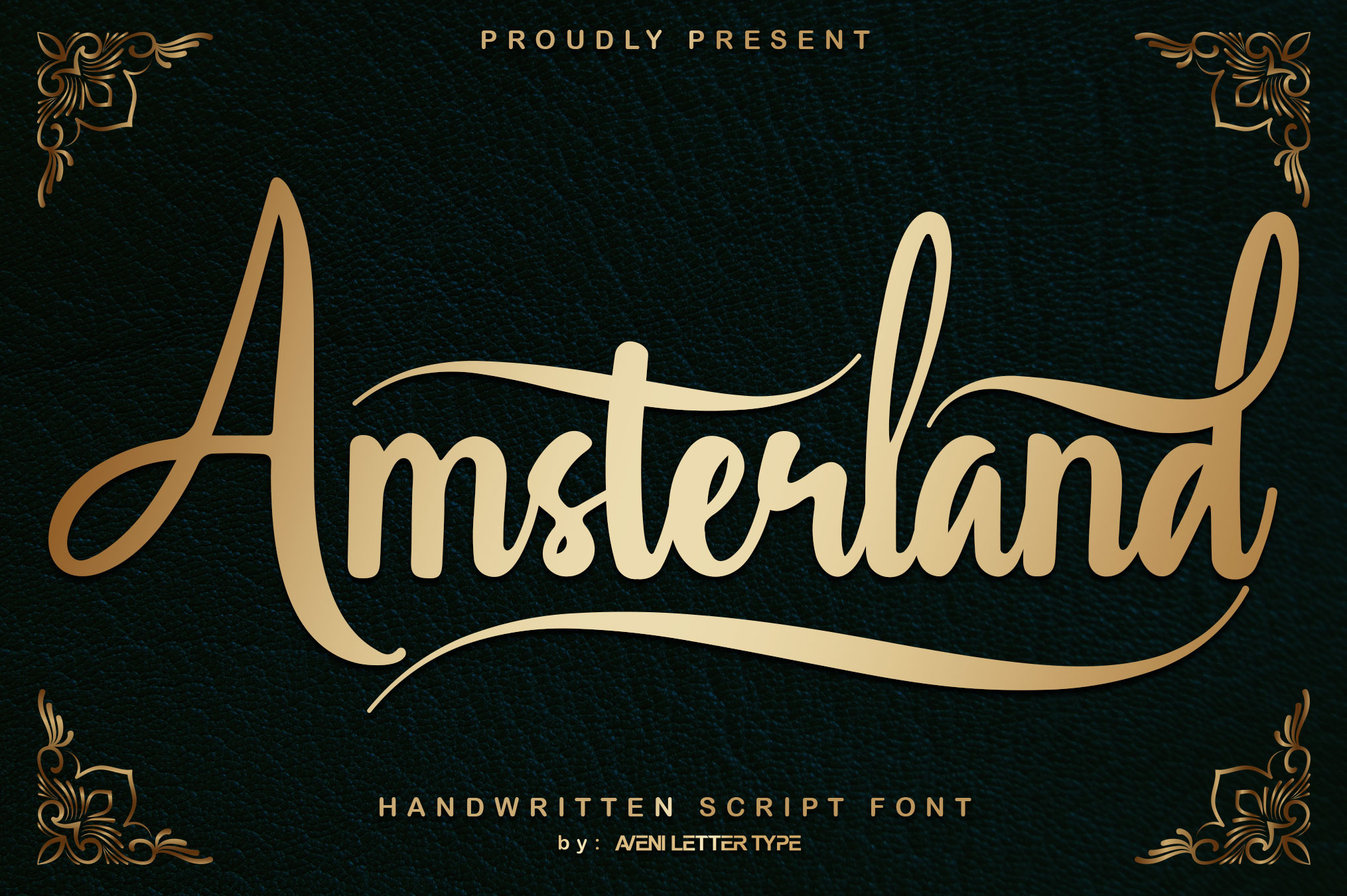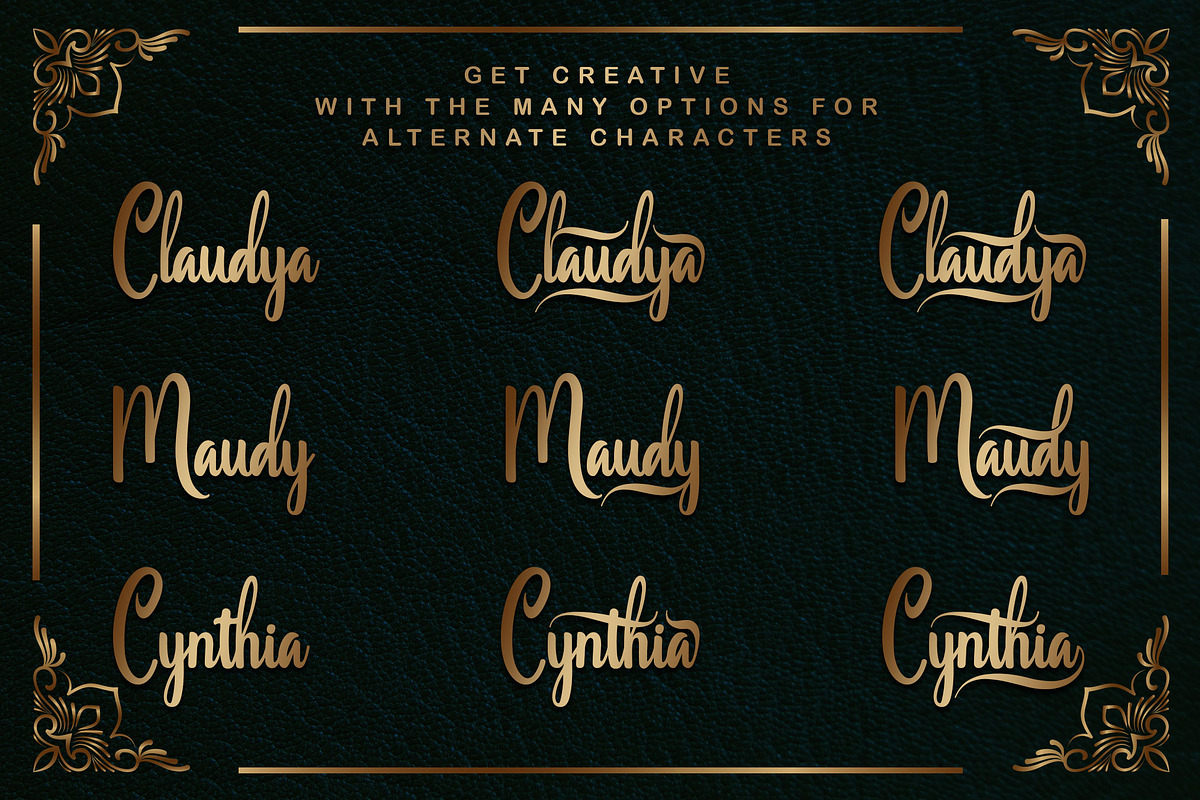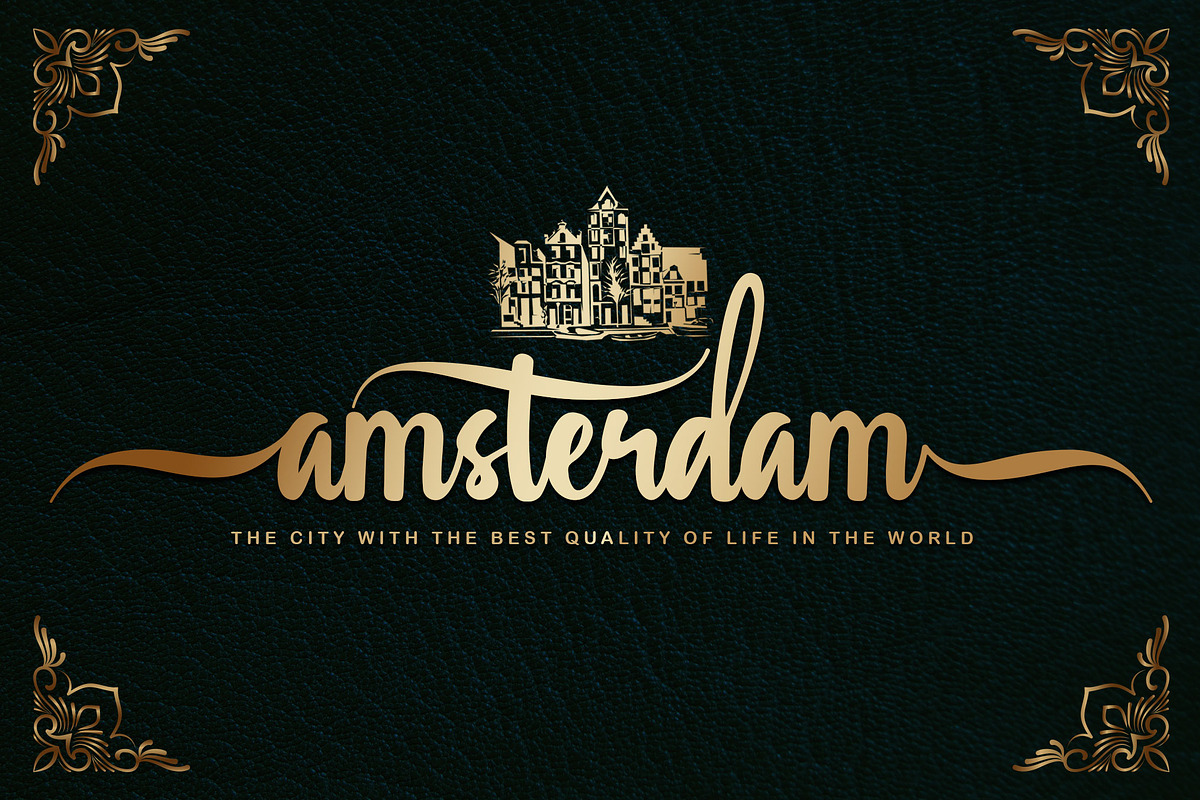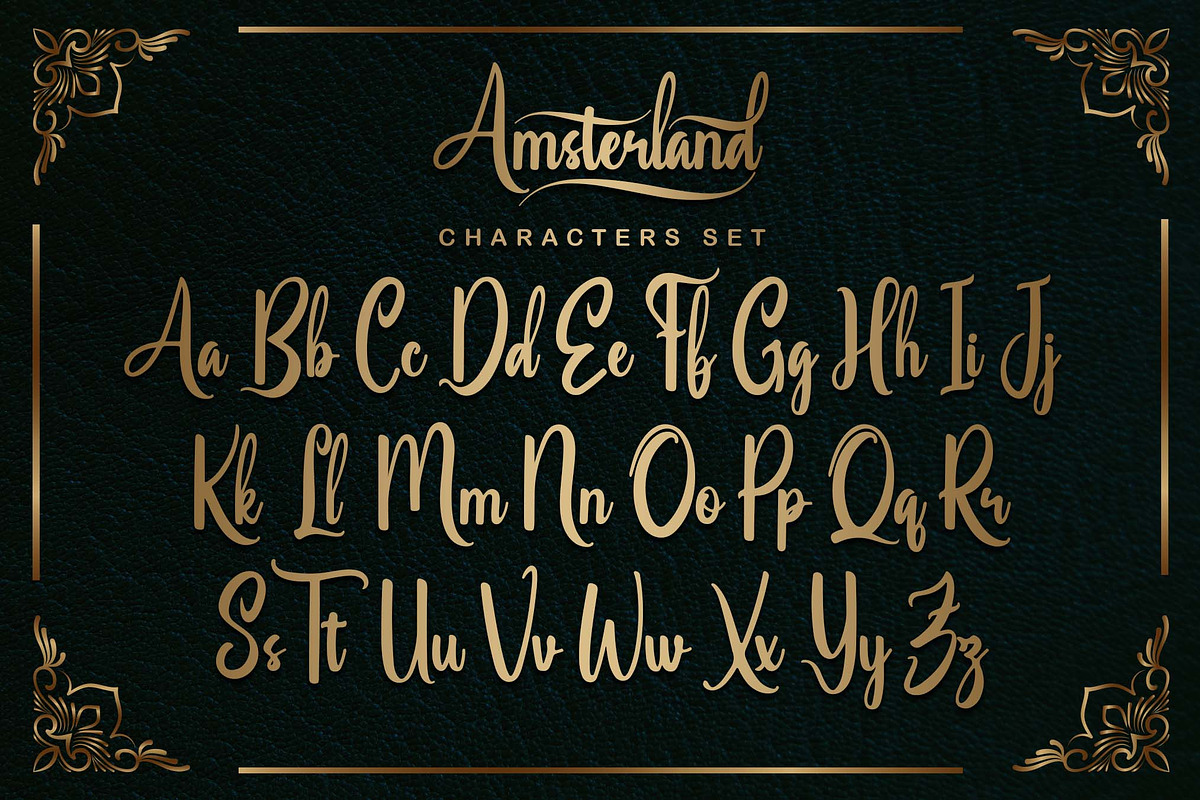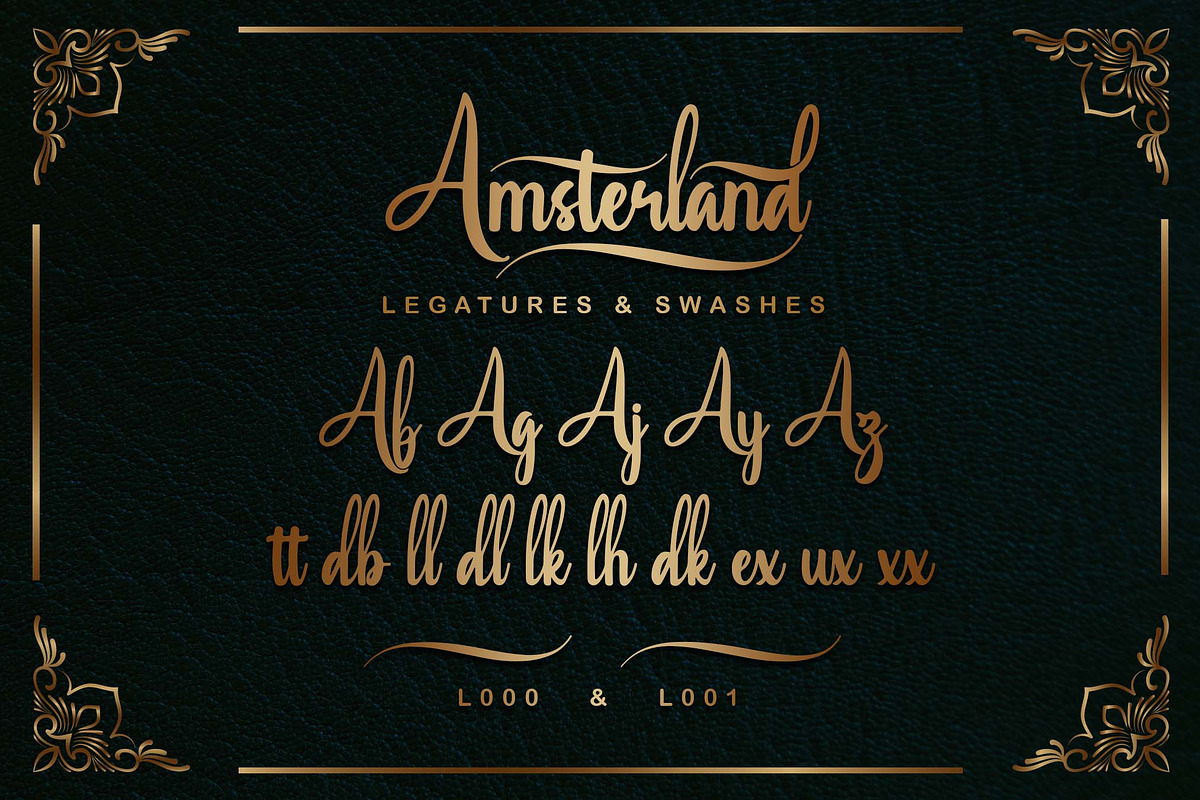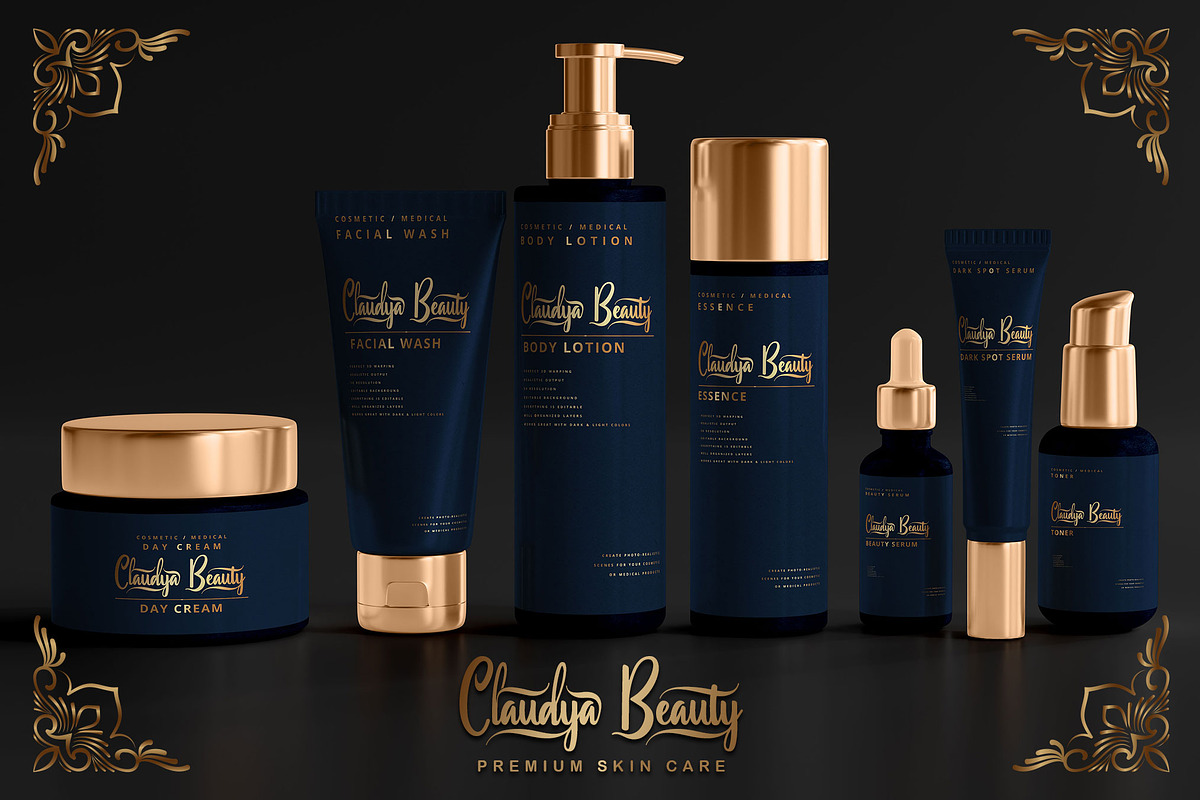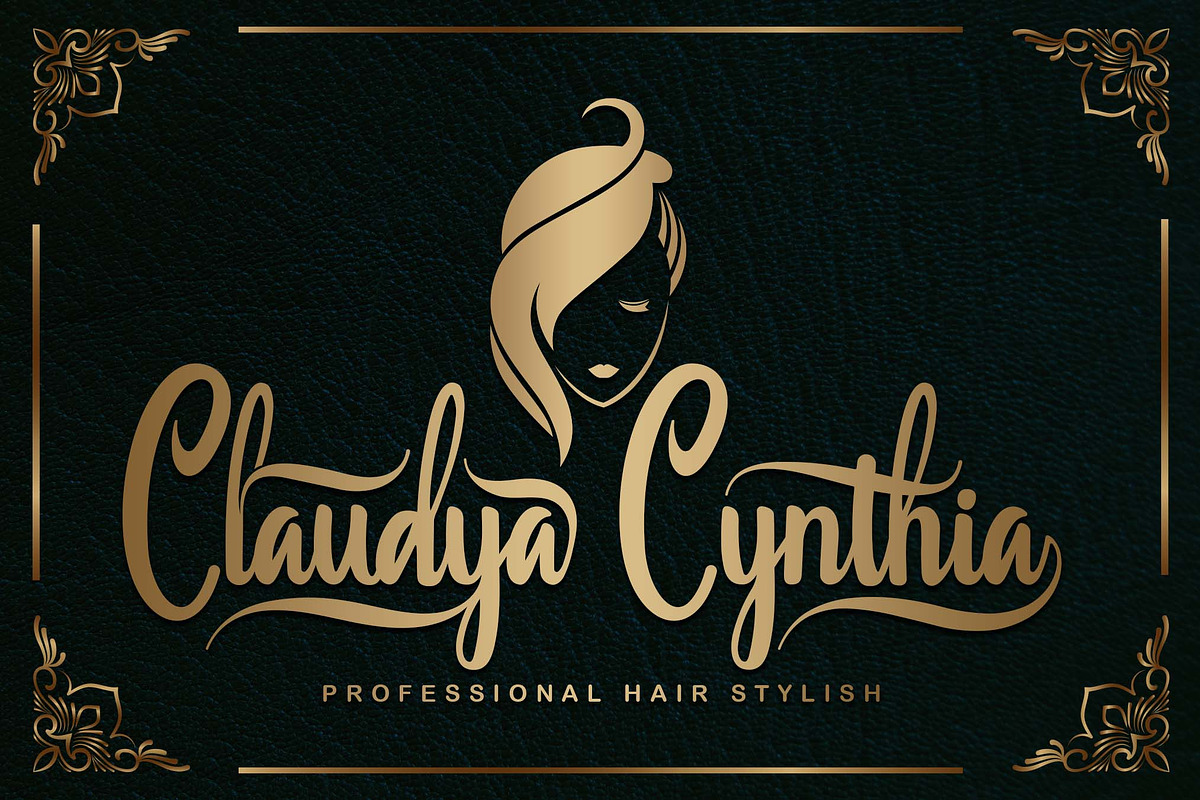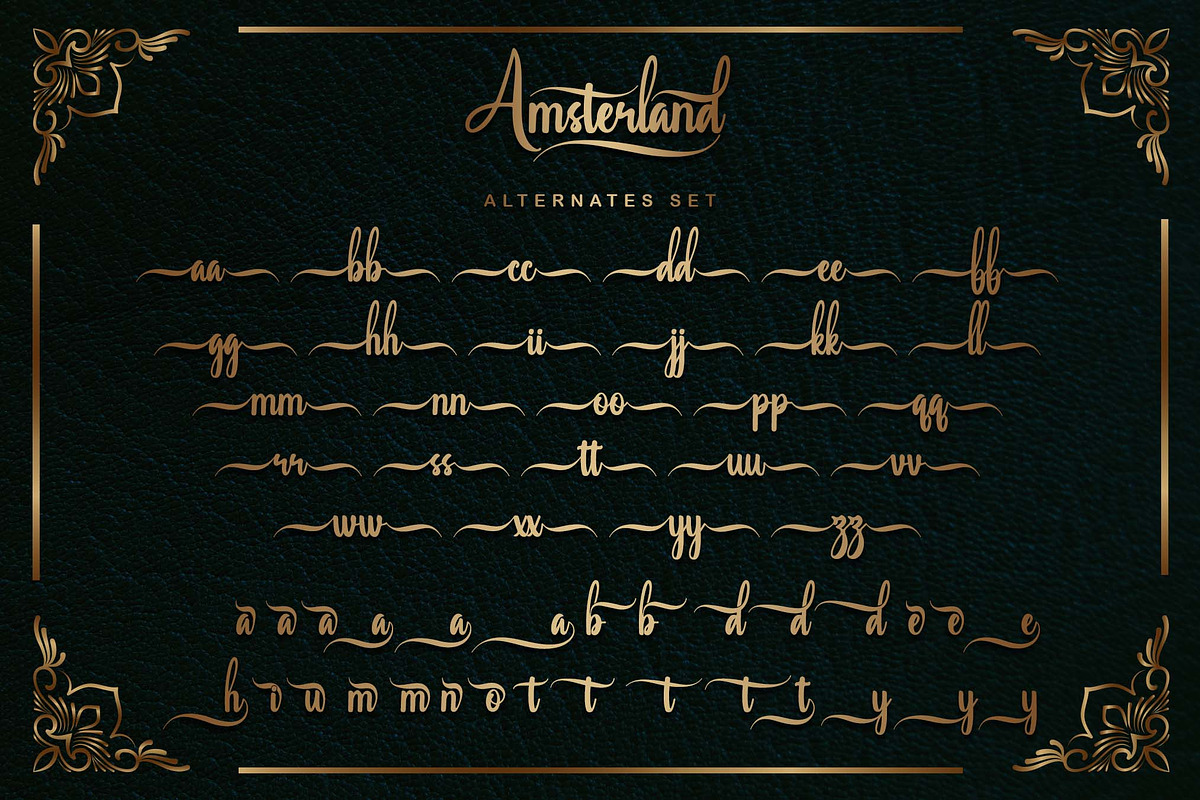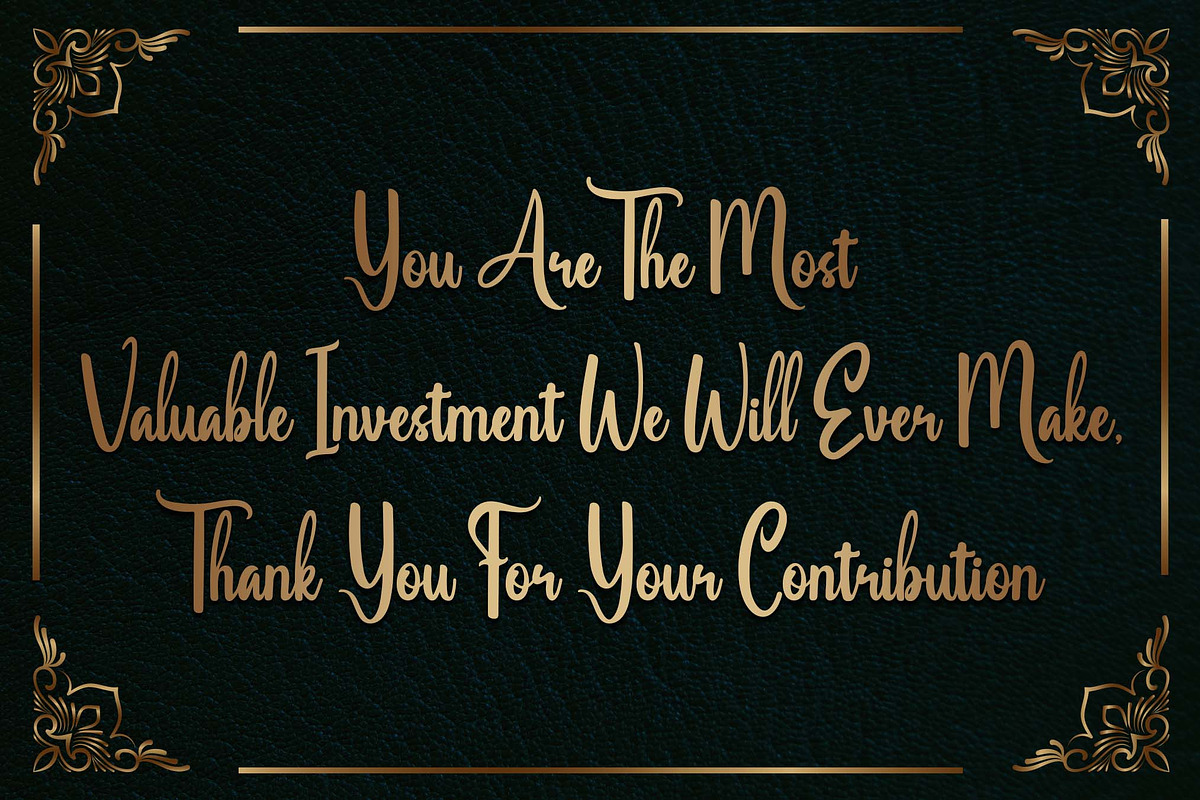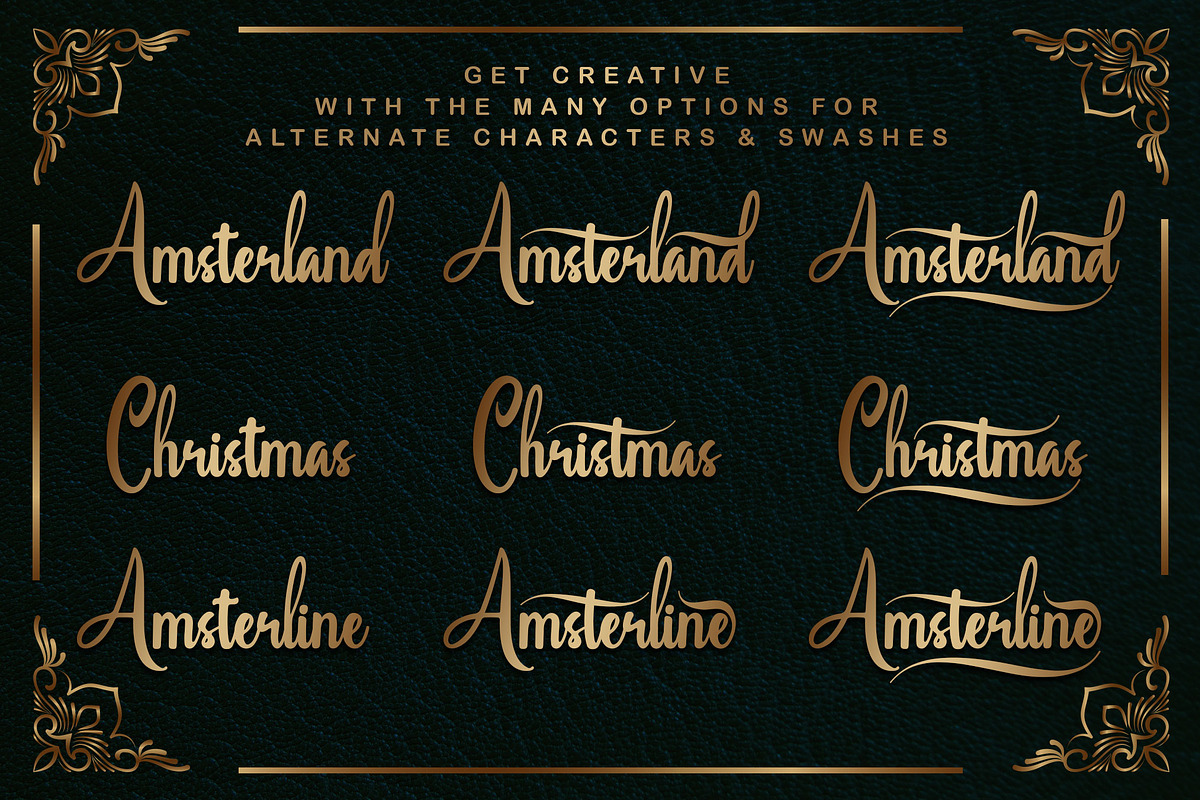
Amsterland | Handwritten Font
Hello ladies and gentlemen, allow me to introduce Amsterland font, a font born from elegant handwriting with a touch of calligraphy. And of course, this font has been meticulously curated, making it easy to use.
Oh, and last but not least, this Amsterland font is highly Instagrammable, making it perfect for use in various projects such as company branding, logos, product branding, wedding invitations, business cards, signage, letterheads, and much more.
Here I give a little way to use swashes in the Amsterland font:
Use the code listed on the thumbnail, such as L001, to create a swash.
Example: AmsterlandL001
Font Feature :
- Uppercase & Lowercase,
- Numeral & Punctuation,
- Alternate & Swash (PUA Encoded)